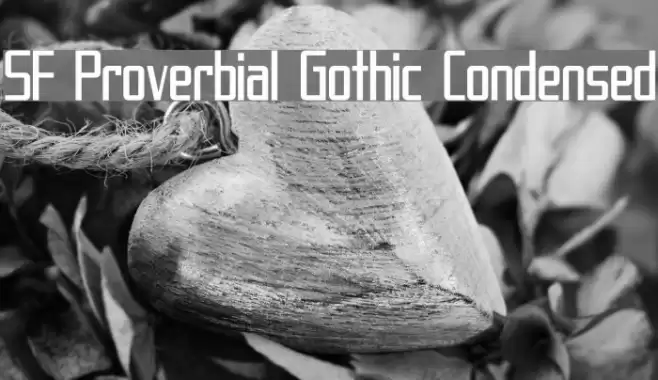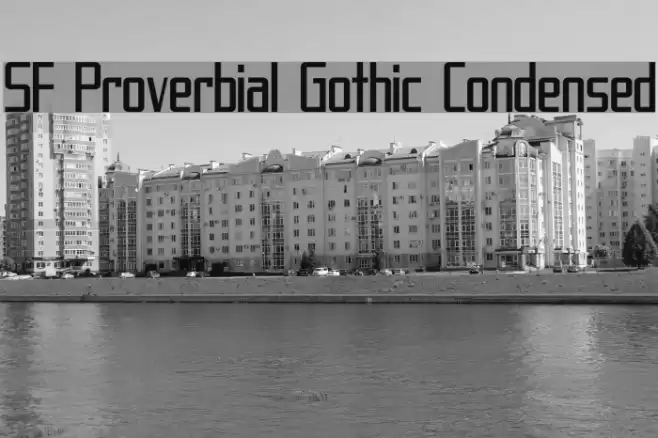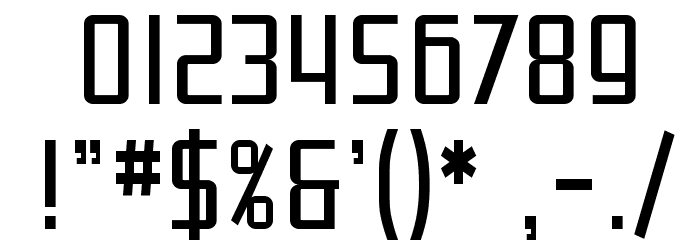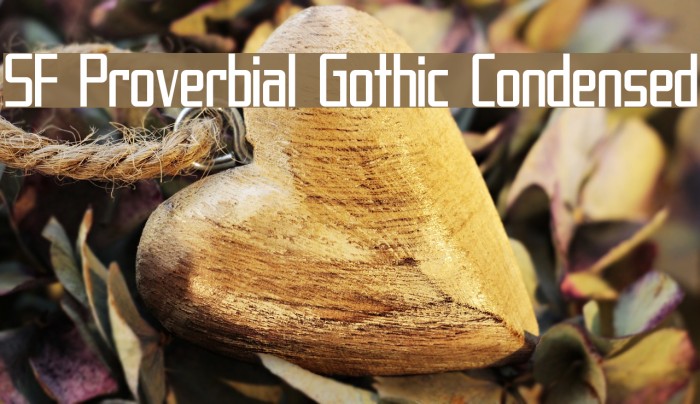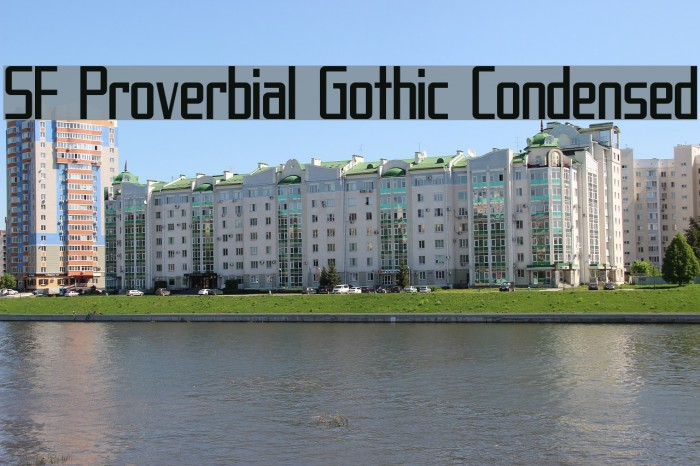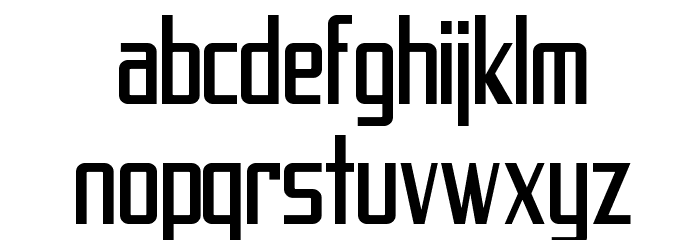
SF Proverbial Gothic Condensed Font
SF Proverbial Gothic Condensed Description
This font features a bold and condensed style with a modern and geometric aesthetic. The uppercase letters are tall and narrow, creating a strong vertical emphasis, while the lowercase letters maintain a consistent width, enhancing readability. The numerals are distinct and align well with the overall design, making them suitable for various applications. Special characters are clearly defined, adding versatility to the font's use. The clean lines and uniform stroke widths contribute to a sleek and professional appearance, making it ideal for contemporary design projects.
A bold, condensed, and geometric font with a modern aesthetic from Formal fonts.
- Proposed Projects: Ideal for branding, advertising, posters, and digital media where a strong, modern impact is desired.